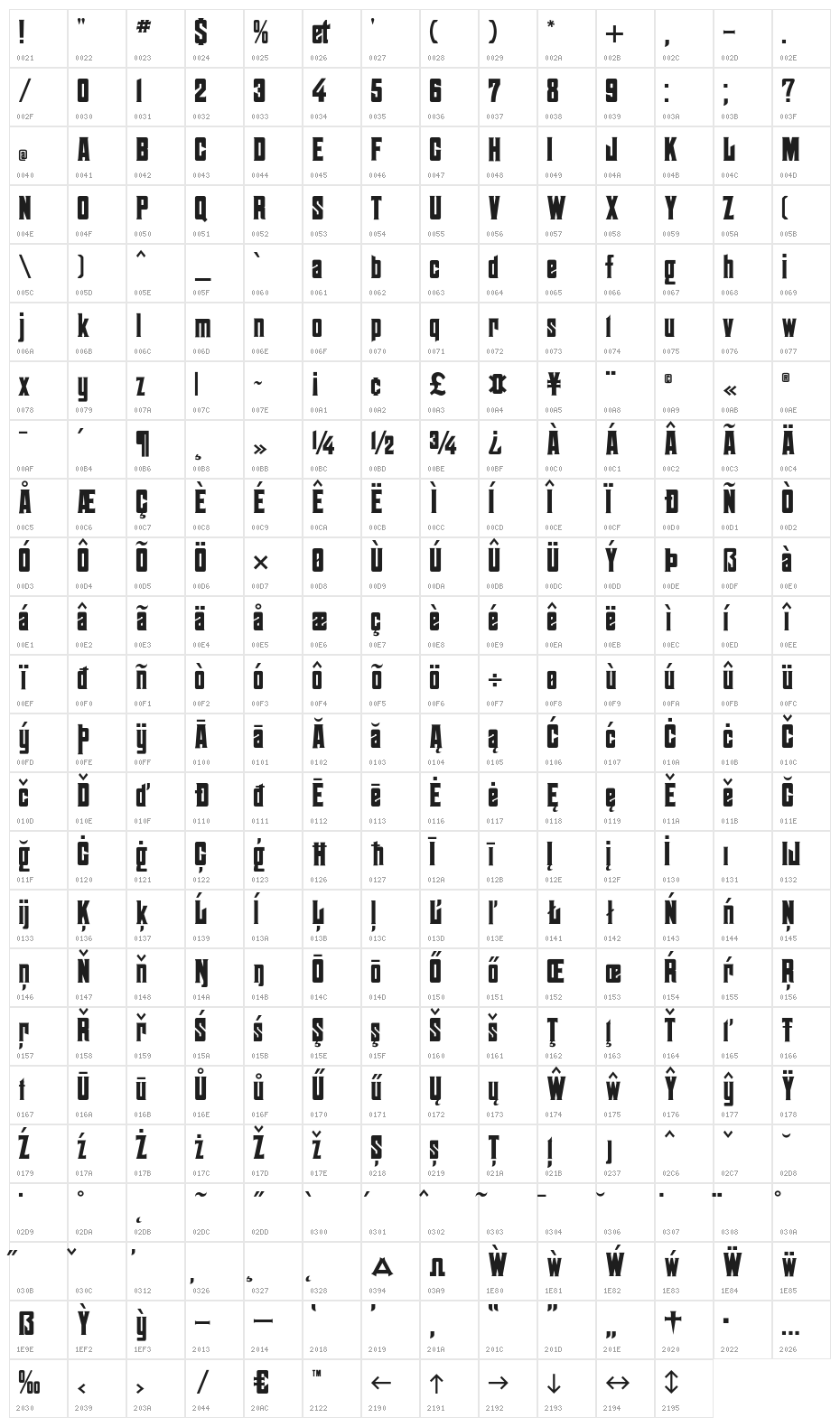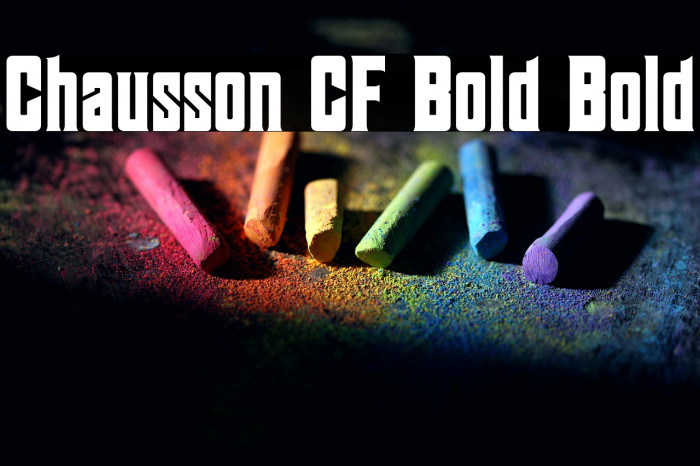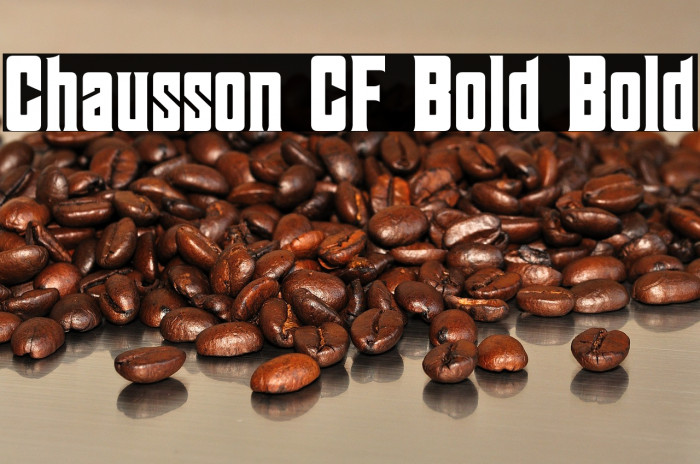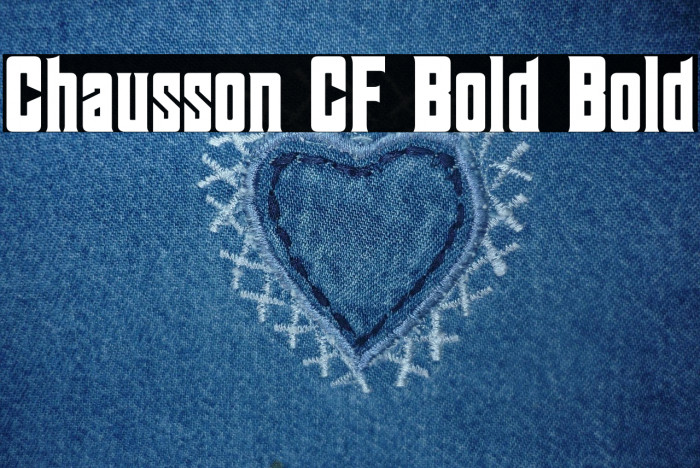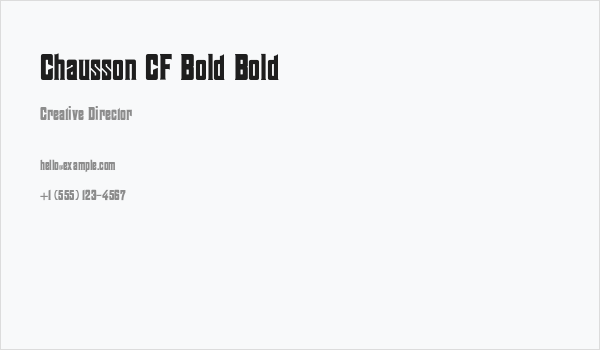
Chausson CF Bold Bold Font
Chausson CF Bold Bold Description
This font features a bold and impactful design with strong geometric shapes and sharp angles. The uppercase letters are particularly striking, with a commanding presence that makes them ideal for attention-grabbing headlines. The lowercase letters maintain the boldness but offer a slightly more compact form, ensuring readability. Numbers and special characters are consistent with the overall bold aesthetic, making them suitable for a variety of uses. The font's style is reminiscent of vintage poster typefaces, yet it carries a modern edge that makes it versatile for contemporary designs.
| Overall Style | Vintage, Modern |
| Proposed Projects | Ideal for posters, logos, branding materials, and any project requiring a strong visual impact. |